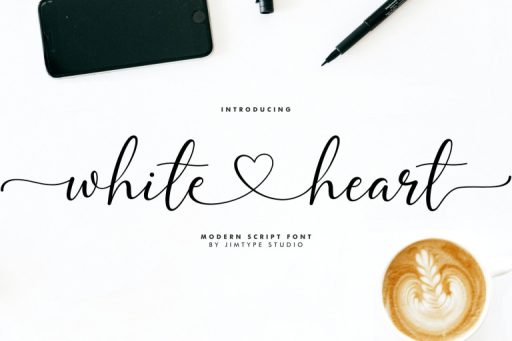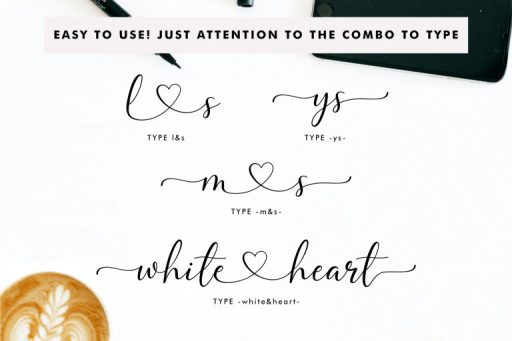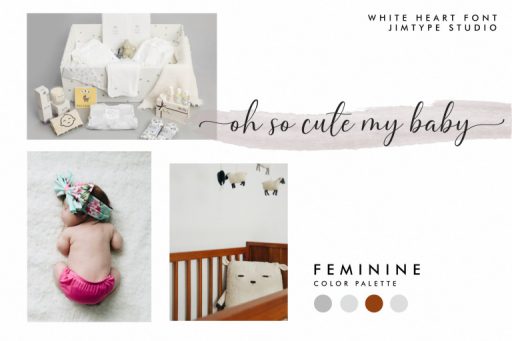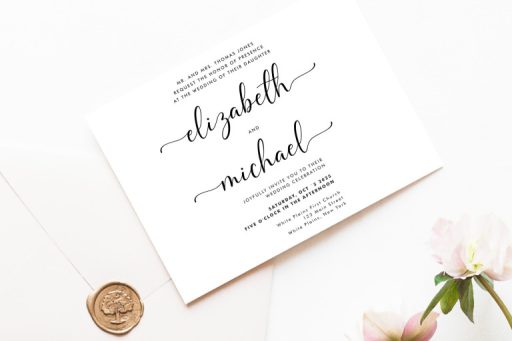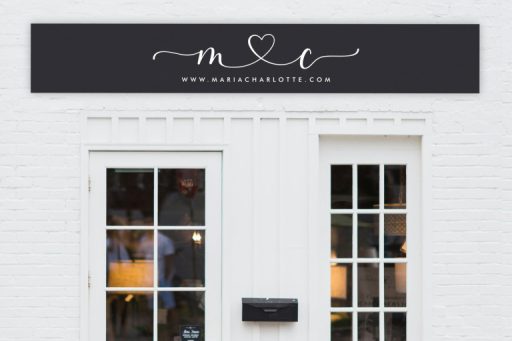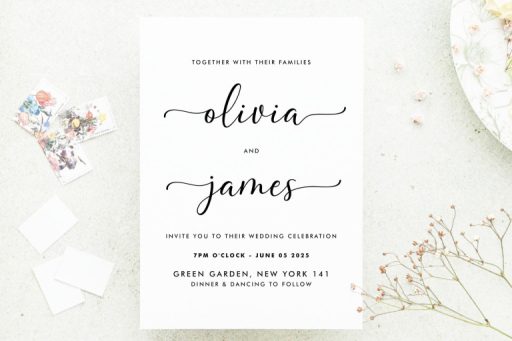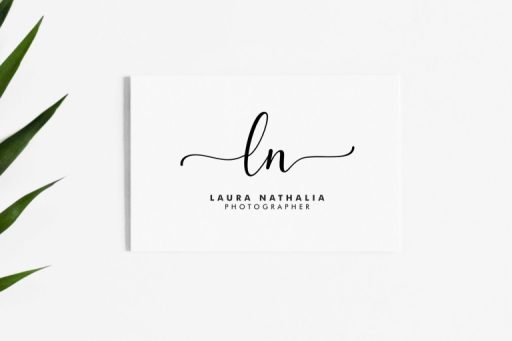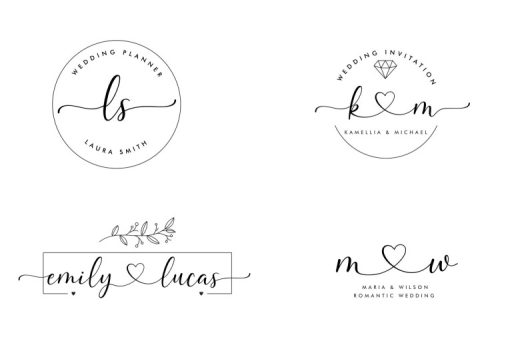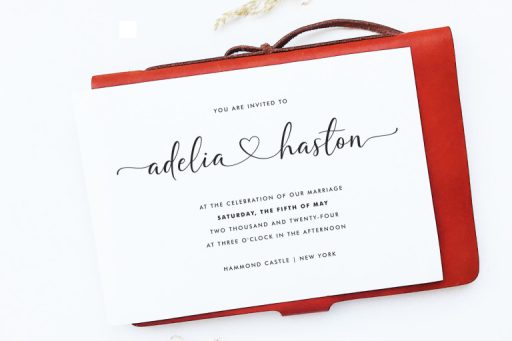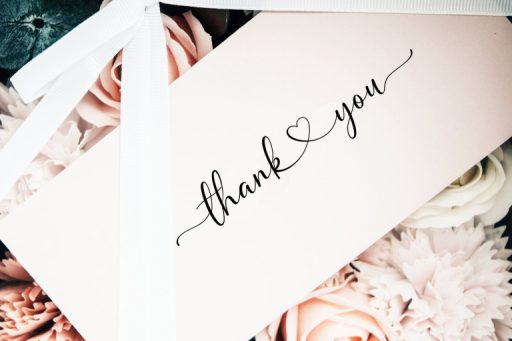
White Heart - Wedding Branding Font from Jimtype Studio
White Heart
White Heart - Heart
White Heart - Tail
White Heart – Wedding Branding Font from Jimtype Studio
Introducing White Heart is a modern, casual, and feminine handwritten script perfect for wedding invitations, calligraphy logos for branding, elegant websites, personalizing gifts, social media posts, and anything else your heart desires!
Included with White Heart is a full set of beginning and ending lowercase swashes, and heart connector swashes to create a realistic handwritten script look for your designs.
Use the following combos for :
• lowercase heart connect
type: a& (lowercase letter ampersand)
For example: amelia&amanda
• lowercase beginning and ending swash
type: -a or a- (hyphenminus lowercase letter or lowercase letter hyphenminus)
For example: -amelia- -amanda-
• You can also combine swash beginning and ending with heart connect, with a combo
For example: -amel&lia-
(hyphenminus lowercase letter ampersand lowercase letter)
• Swashes heart connections
• Beginning and ending swashes characters